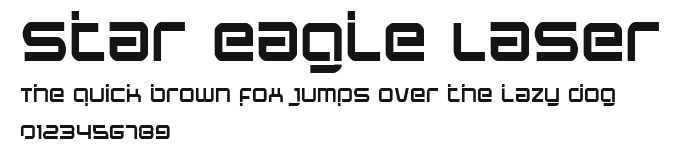
• Font Name: Star Eagle Laser
About Star Eagle Laser.ttf
Star Eagle Laser.ttf is a modern, elegant sans-serif font designed for ultimate readability and visual harmony. Perfect for branding, headlines, web design, and print materials.